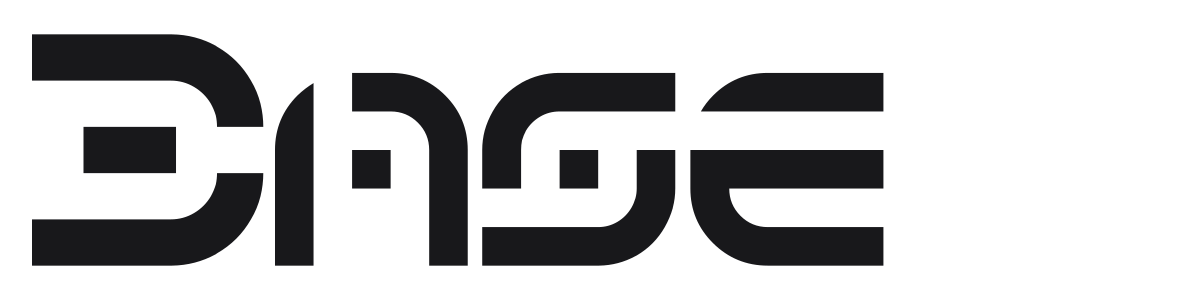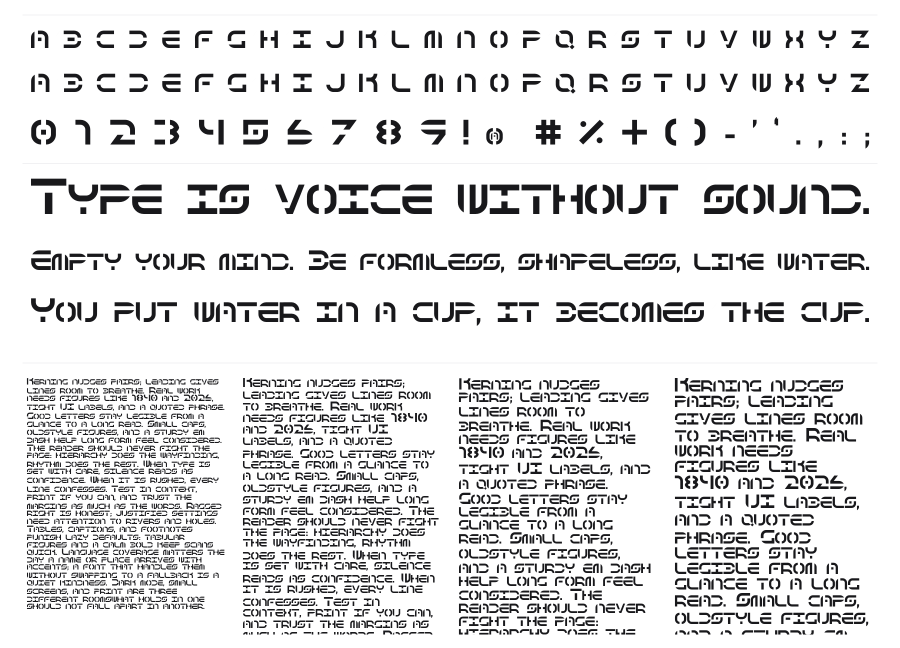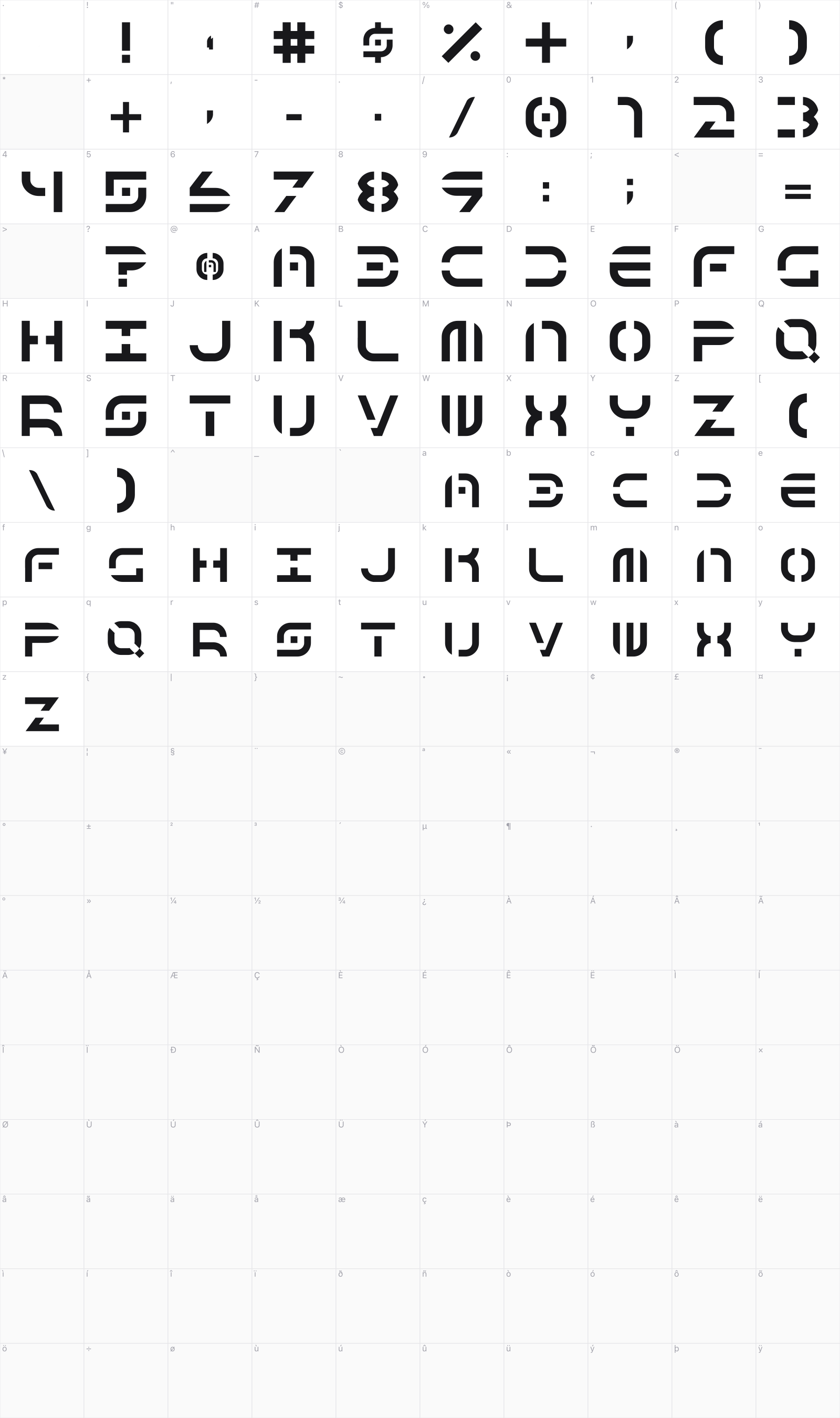
Base
Base is a bold geometric stencil typeface built on a strict grid of rectangular forms and deliberate cut gaps. Every character reads as if machined from a single sheet of material, with flat terminals and uniform weight throughout. The result is commanding and industrial, sitting somewhere between military stenciling and futuristic tech branding.